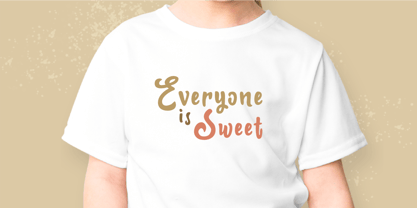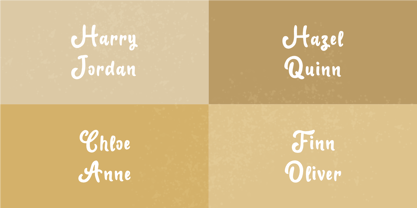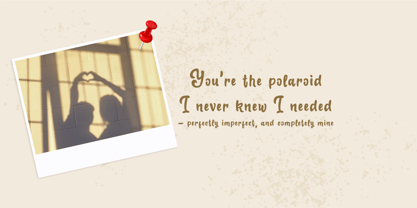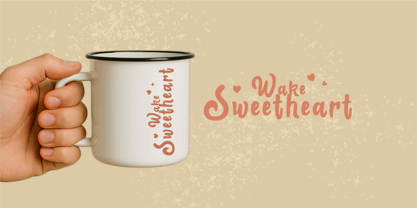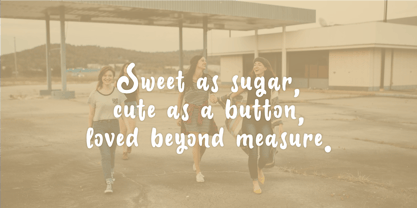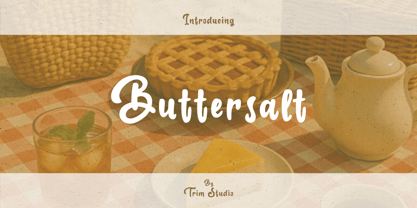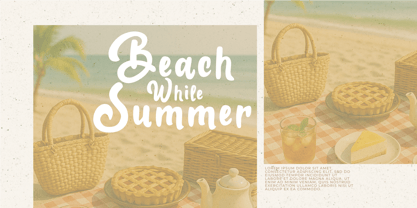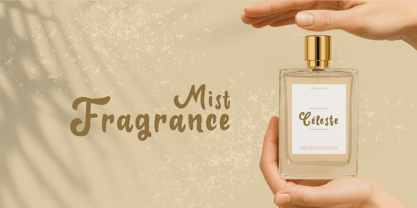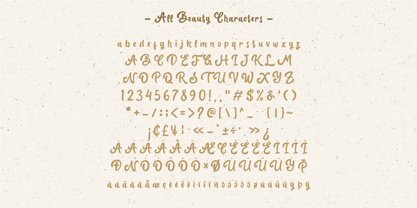
Buttersalt
von Trim Studio
Die Schriftfamilie Buttersalt wurde von Deri Kurnia entworfen und von Trim Studio veröffentlicht. Buttersalt enthält 2 Stile und Familienpaketoptionen. Mehr über diese Familie
Buttersalt playful script font combines smooth, flowing curves with charming, quirky details that give it a warm and cheerful personality. Its elegant yet casual style makes it perfect for creative headlines, invitations, greeting cards, and any design that needs a touch of whimsy and friendliness. With its delightful loops and lively character, it brings words to life in a fun and stylish way.
Designer: Deri Kurnia
Foundry: Trim Studio